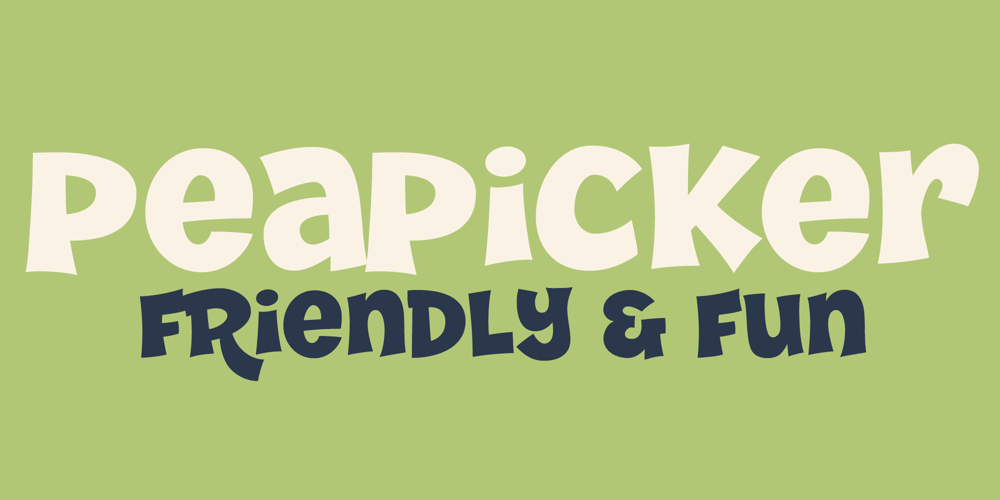
Peapicker
Peapicker font
Peapicker Font Family was designed by Brian J. Bonislawsky, Dave Cohen and published by One Eyed Squid. Peapicker contains 1 styles and family package options. Friendly and fun, bold and outlandish, it’s Peapicker! It’s unicase styling with Capitals and Lowercase at the same height give off a playful vibe that is great for some many uses and occasions. Type all Capitals for a slightly jovial but more serious vibe or type all lowercase for a frolicking offbeat flavor – you choose your own typographic adventure!(Peapicker contains an extended Latin character set with added Vietnamese support.)